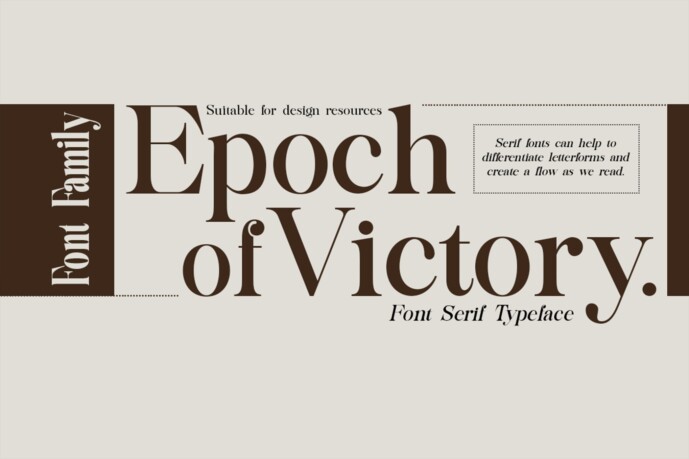
Epoch of Victory Font
Designer: groenstudio
Epoch of Victory has the perfect balance between the familiar and the unexpected. With Epoch of Victory, designers can use this font for various needs in creating elegant design works. Please note, Epoch of Victory is a bold and expressive serif family font that adorns the pages of top fashion magazines and publications in print media and web pages.
Epoch of Victory flows with vintage charm that supports contemporary designs. Epoch of Victoryis a variation of a letter with a normal and condensed style that is characterized by a soft flexibility in the glyph character section. This font comes in 36 variations, including; 18 Regular fonts upright and italic; 18 condensed upright and italic, so a total of 36 font variations